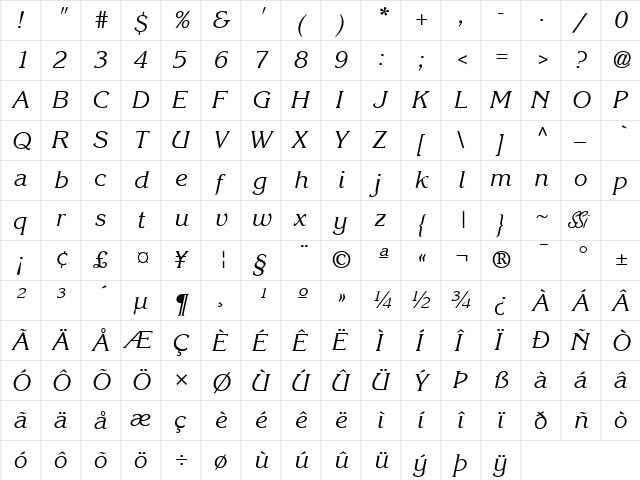
Intuition SSi Italic
Design Context for Intuition SSi Typeface
Intuition SSi offers clean, dependable letterforms without strong stylistic allegiance, making it a practical choice for designers who need flexibility. Its italic angle brings a sense of urgency and motion to the letterforms.